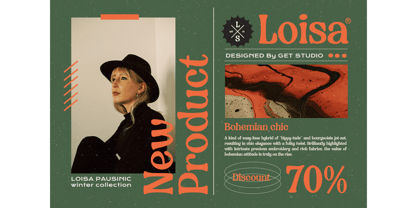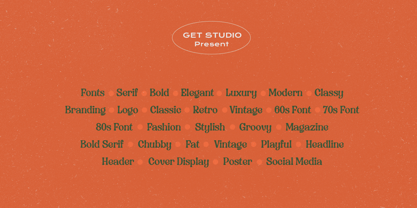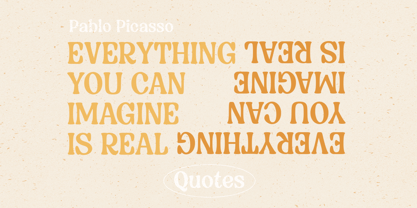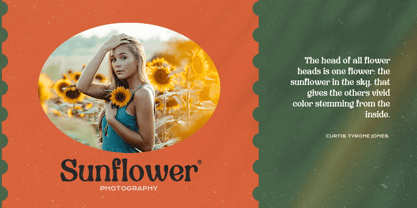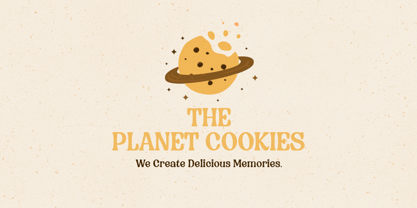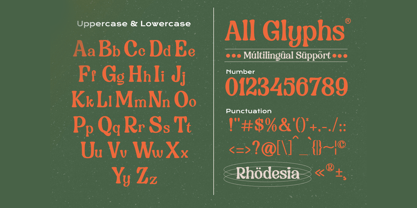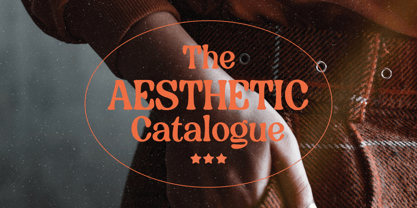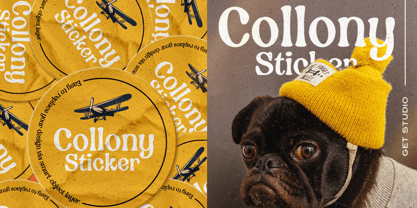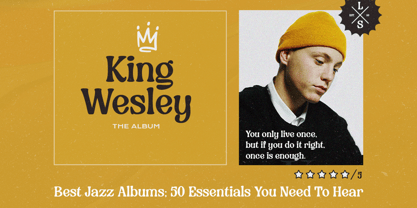
Rhodesia
by Get Studio
The Rhodesia Font Family was designed by Hermansyah and published by Get Studio. Rhodesia contains 1 styles. More about this family
Rhodesia is classy display typeface with chubby and serif style that perfect for retro design. It come with a unique lower and uppercase plus numbers, punctuation & multilingual letters.
You can use it as a logo, badge, insignia, packaging, headline, poster, t-shirt/apparel, greeting card, and wedding invitation.
Designers: Hermansyah
Foundry: Get Studio